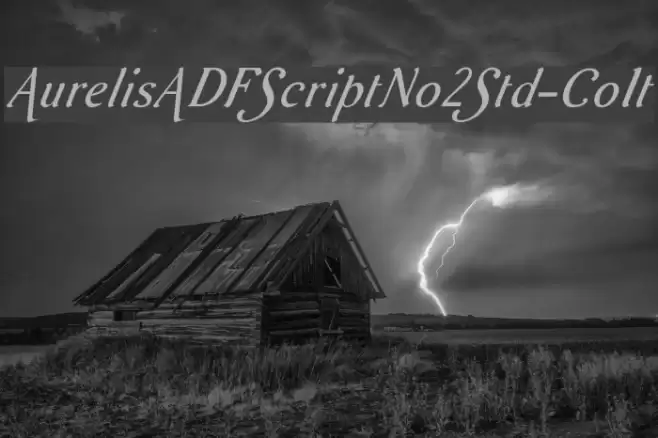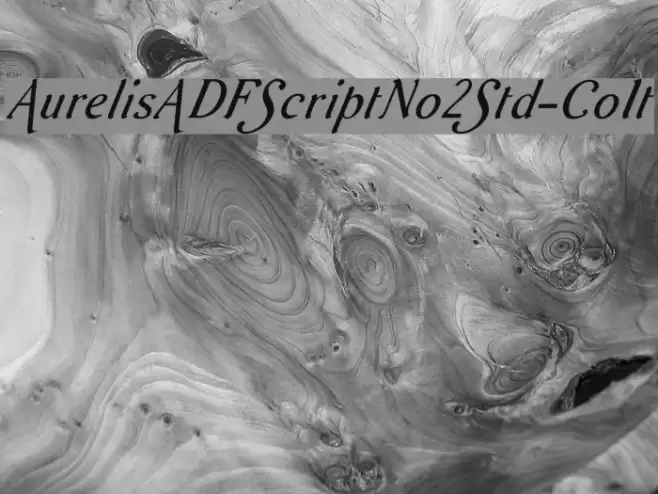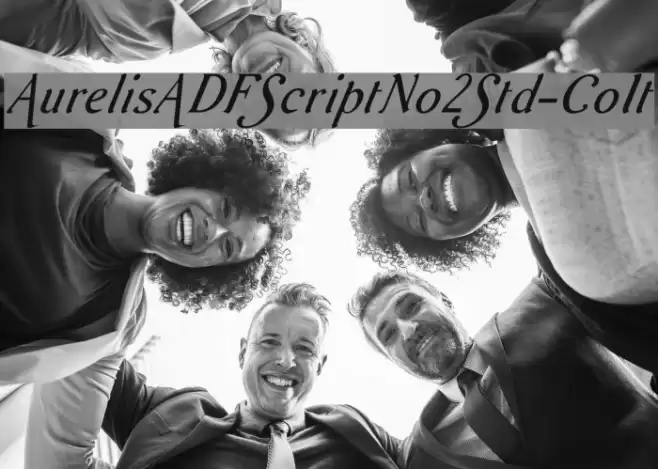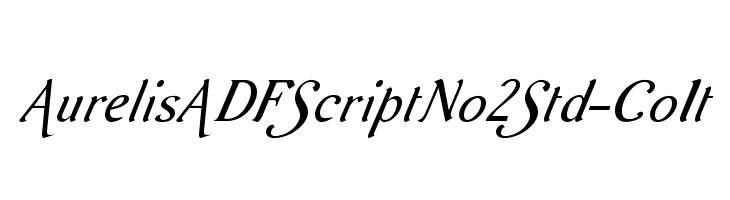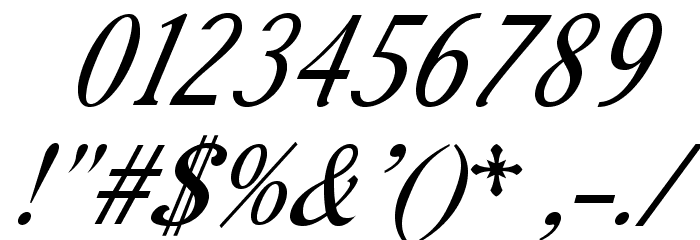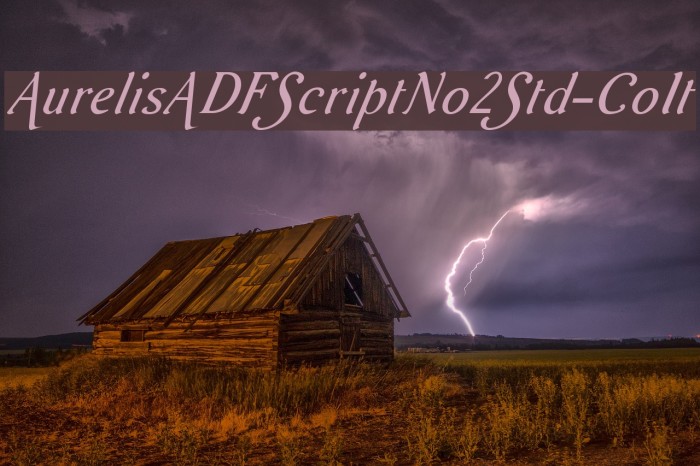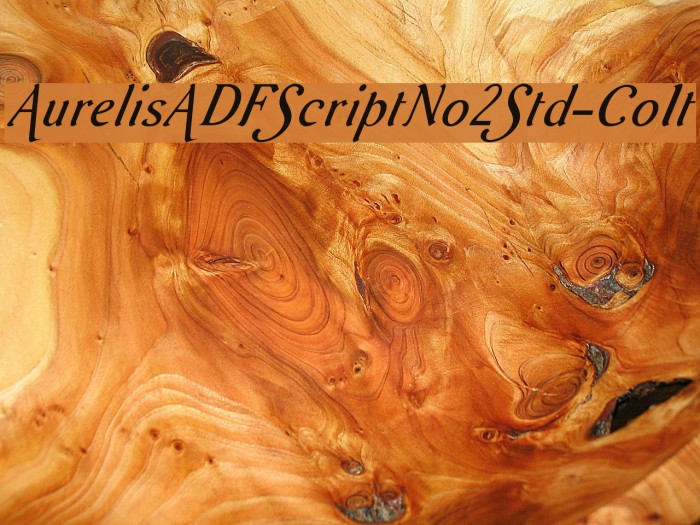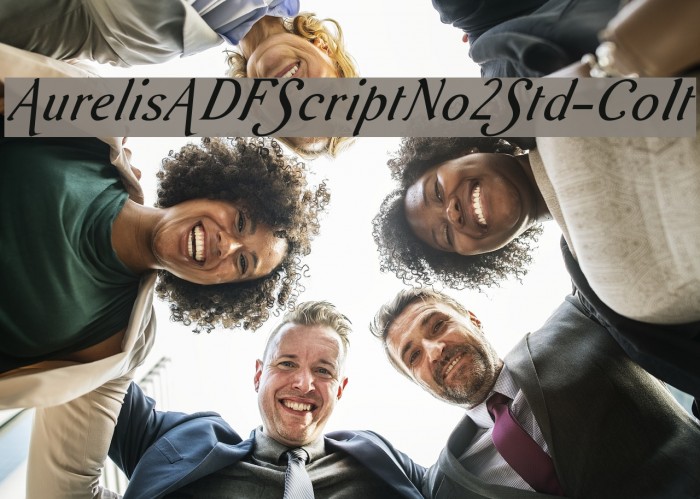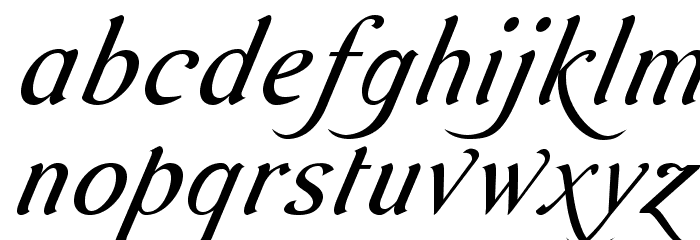
AurelisADFScriptNo2Std-CoIt Font
AurelisADFScriptNo2Std-CoIt Description
This font exhibits a classic and elegant script style with a calligraphic influence. The characters are gracefully slanted, providing a dynamic and fluid appearance. The uppercase letters are bold and prominent, while the lowercase letters maintain a consistent flow with subtle curves and flourishes. The numerals are well-proportioned, matching the overall aesthetic of the alphabet. Special characters are designed with the same attention to detail, ensuring a cohesive look throughout. The font's design is suitable for projects that require a touch of sophistication and traditional charm.
An elegant script font with a classic, calligraphic style from Uncategorized fonts.
- Font: AurelisADFScriptNo2Std-CoIt
- Weight: Bold Italic
- Proposed Projects: Ideal for wedding invitations, formal event programs, elegant branding, and high-end product packaging.
- Overall Style: Classic
- Use Case: Headlines, Invitations, Branding